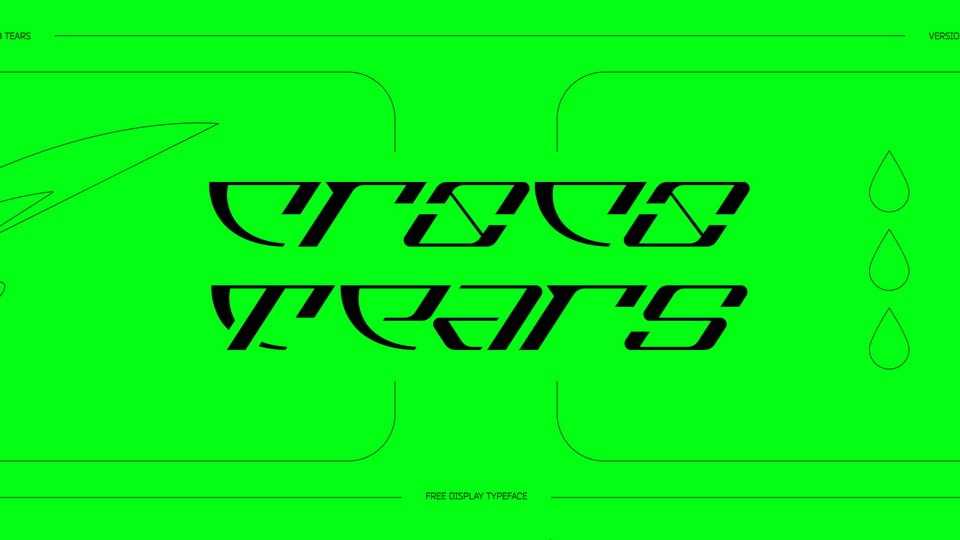
Download Croco Tears font, a display typeface based on a sports stylistics with the addition of an aggressive reptile tone. Good for logos, titles and clothing.
Designer: Roman Zakharenko